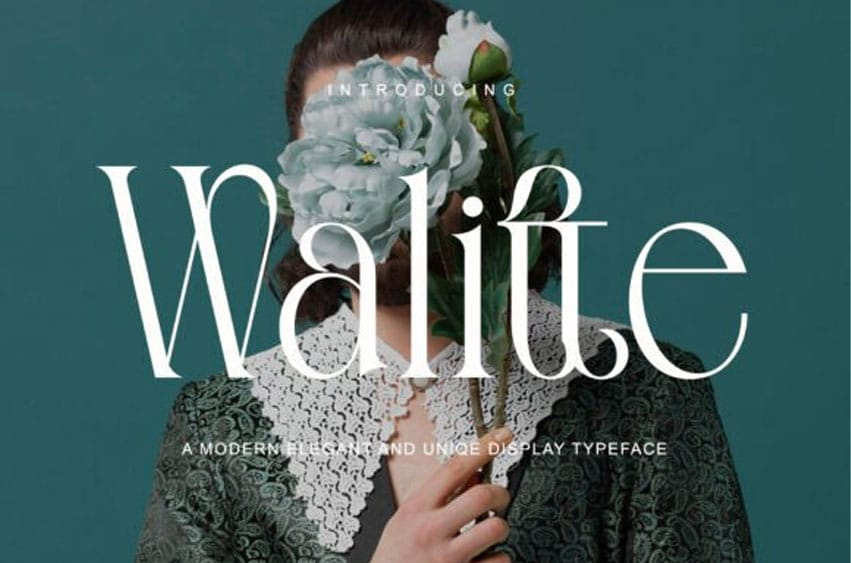
Walitte Font is an elegant ligature serif modern font that evokes the beauty of fresh blooms and timeless elegance. With its bold yet refined ligatures, Walitte is a sophisticated and feminine typeface. Perfect for upscale designs, whether for florals, fashion, or high-end branding, Walitte pairs the charm of classic serif styles with a modern twist. Every letter feels intentional, with a soft and graceful presence that elevates any project it touches.
Bring a touch of refinement and natural grace to your work with Walitte. Let this font breathe elegance into your designs, and watch them flourish with style and character.